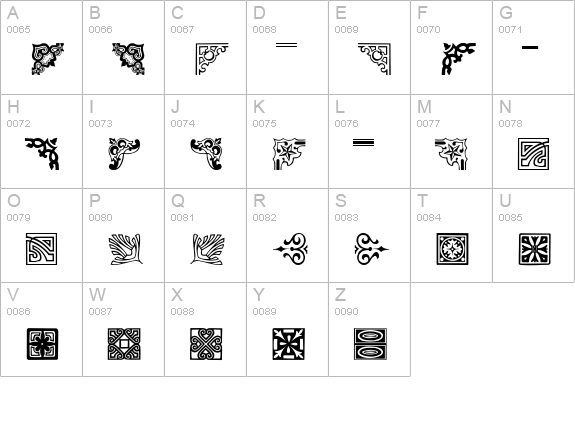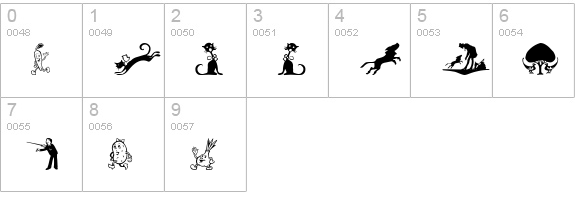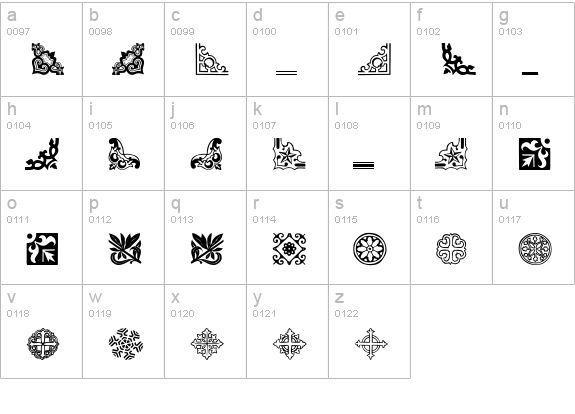
GriffinDingbats1 Font Details
The GriffinDingbats1 font is a whimsical and charming typeface that is sure to add a touch of fun to your designs. This font features a collection of unique dingbat characters that can be used to create eye-catching graphics and decorative elements. Whether you're designing invitations, posters, or social media graphics, GriffinDingbats1 is the perfect choice for adding a creative flair to your projects. Best of all, this delightful font is available for free download at FontsMarket.com. Simply visit the website to access this font and enhance your designs with its playful and distinctive characters. Add a touch of personality to your projects with GriffinDingbats1 today!